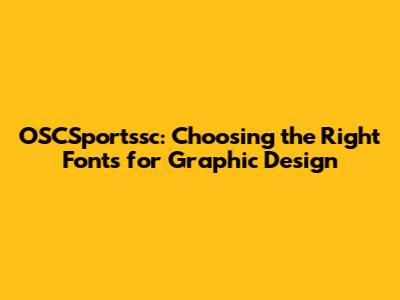
Hey guys! Let's dive into something super important for any graphic designer or anyone looking to create visually stunning content: fonts. Specifically, we're going to talk about choosing the right fonts for OSCSportssc and how they can seriously impact your design projects. Fonts aren't just about picking something that looks pretty; they're about communicating a message, establishing a brand identity, and making your work stand out. Getting the font right is a crucial aspect of graphic design, so let's explore how to nail it! We'll look at different font types, how they influence your designs, and where you can find the perfect fonts for your needs, especially when working on projects related to OSCSportssc.
The Power of Typography: Why Fonts Matter
Alright, so why should you care about fonts? Well, typography is the art and technique of arranging type to make written language legible, readable, and appealing when displayed. When you're designing for OSCSportssc (or anything, really), the fonts you choose can make or break your design. They set the tone, convey the brand's personality, and guide the viewer's eye. Think about it: a sleek, modern font might be perfect for a technology company, while a more playful, handwritten font could be ideal for a children's brand. The wrong font can send the wrong message, confusing your audience and diluting your brand's impact.
Font Psychology
Each font has its own personality, and understanding this is key. Serif fonts, like Times New Roman or Georgia, are often seen as traditional, trustworthy, and reliable. They have those little strokes (serifs) at the ends of the letters, which can lend a sense of formality and history. On the other hand, sans-serif fonts, such as Arial or Helvetica, lack these strokes, giving them a cleaner, more modern look. They're often seen as contemporary, minimalist, and straightforward. Then there are script fonts, which mimic handwriting and add a touch of elegance or playfulness. Finally, display fonts are designed for headlines and short bursts of text, often being bold and eye-catching. Understanding these differences and how they align with the message and the context of OSCSportssc is fundamental to effective graphic design.
Impact on Branding
Fonts are a huge part of your brand identity. They are how you communicate your brand's personality, values, and overall message. Consistent font usage across all your marketing materials (website, social media, print ads) builds brand recognition and trust. If you're designing something for OSCSportssc, think about what the brand stands for. Are they about speed, reliability, and innovation? Or are they about tradition, community, and excellence? Your font choices should align with these values. When a potential customer sees your brand’s font, it should instantly remind them of your brand, its values, and its products or services. It reinforces the brand's message and creates a unified visual identity.
Readability and Accessibility
Beyond aesthetics and branding, the readability of a font is paramount. Your design can be beautiful, but if it's hard to read, it's useless. Consider the size, weight, and spacing of your fonts to ensure they are easy on the eyes, particularly for longer blocks of text. Choose fonts that work well at different sizes and on various devices. Also, keep in mind accessibility. People with visual impairments need designs that are easy to read. This might mean using larger fonts, high contrast, and avoiding fonts that are overly ornate or difficult to decipher. Accessibility ensures that everyone can enjoy and understand your design.
Types of Fonts and Their Applications
Now, let's look at the different categories of fonts and how to use them effectively, particularly for OSCSportssc or any design project. Understanding the characteristics of each font type will help you make informed decisions about your design choices.
Serif Fonts
As we mentioned earlier, serif fonts have those small decorative strokes at the ends of the letters. These fonts are often associated with tradition, authority, and readability, especially in print. Examples include Times New Roman, Georgia, and Garamond. For OSCSportssc, a serif font might work well for a company that values heritage, trust, or a classic aesthetic, but use them wisely, ensuring they are not too heavy or they may appear outdated.
Sans-serif Fonts
Sans-serif fonts lack the serifs, giving them a clean, modern look. They're great for digital interfaces, headlines, and when you want a contemporary feel. Think about fonts like Arial, Helvetica, and Open Sans. These are often easier to read on screens because of their simplicity. For OSCSportssc, a sans-serif font might be a good choice for conveying innovation, speed, or a forward-thinking brand. They are also super versatile and work well across a range of applications, from websites to social media posts.
Script Fonts
Script fonts mimic handwriting and add a touch of elegance, personality, or playfulness. They come in different styles, from formal calligraphy to casual brushstrokes. Examples include Brush Script MT or Pacifico. These are typically used sparingly, such as for headlines or invitations, to add a special touch. For OSCSportssc, a script font might work for a special event or a design element that wants to evoke a sense of creativity or sophistication, but it should be used carefully to ensure readability.
Display Fonts
Display fonts are designed for headlines, titles, and short bursts of text. They are often bold, decorative, and eye-catching, designed to grab attention. These fonts can be anything from geometric shapes to elaborate designs. They are great for adding a unique flair to a design. You could find some super cool display fonts for a poster advertising an OSCSportssc event. Just make sure the font doesn't overshadow the message. Examples include Impact, Bebas Neue, or Montserrat Black.
Finding the Right Fonts: Where to Look